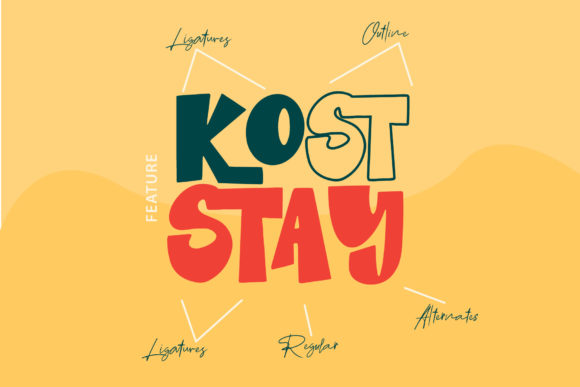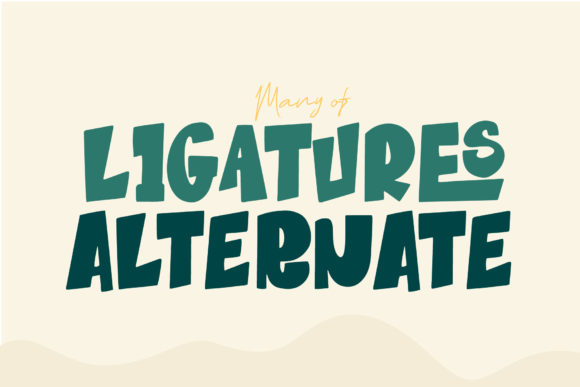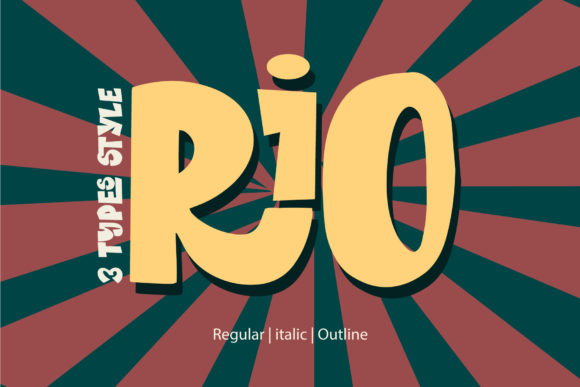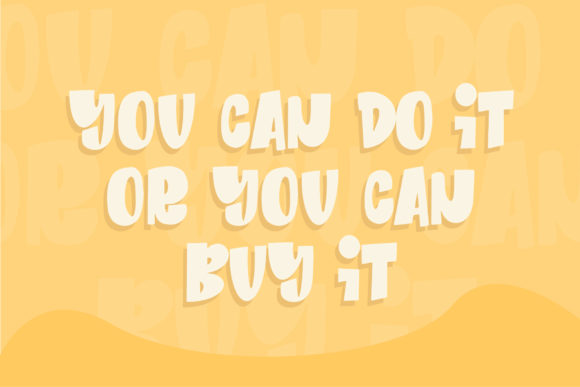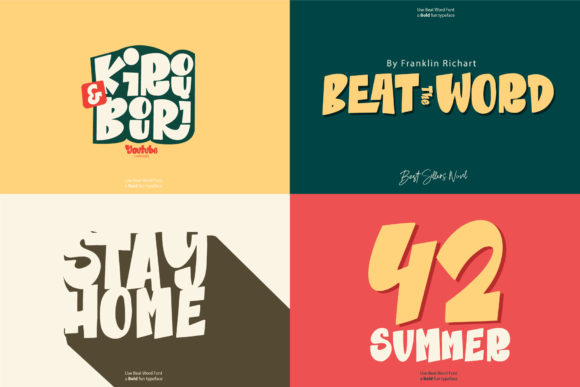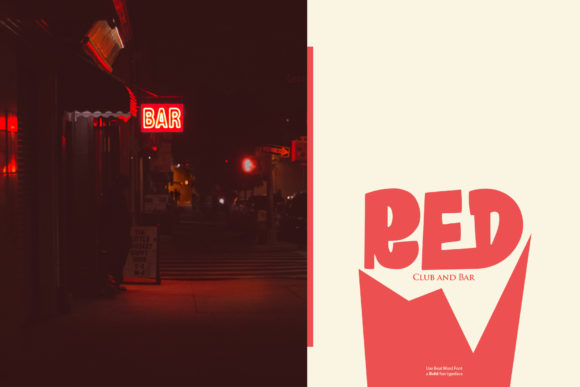
Introducing Beat Word Font: The Ultimate Display Font for Fun and Creative Projects
Are you tired of using the same old fonts for your design projects? Look no further than Beat Word Font, a great display font that’s sure to add a playful touch to any kids and cartoon project. With its amazing alternates and ligatures, Beat Word Font is the perfect choice for designers and crafters who want to add some fun and personality to their work.
What Makes Beat Word Font So Special?
Beat Word Font is a standout display font that features an incredible fun and friendly feel. Its unique design makes it perfect for use in a variety of projects, from kids’ books and cartoons to posters and social media graphics. The font’s playfulness is sure to capture the attention of your audience and leave a lasting impression.
Key Features of Beat Word Font
- Amazing Alternates: Beat Word Font comes with a range of amazing alternates that allow you to customize your text and add some extra flair to your design.
- Ligatures: The font also features ligatures, which help to create a more cohesive and polished look.
- Fun and Friendly Feel: Beat Word Font has a fun and friendly feel that’s perfect for kids and cartoon projects.
- Playful Design: The font’s playful design makes it perfect for use in creative projects where you want to add some personality and whimsy.
How to Use Beat Word Font in Your Projects
Beat Word Font is incredibly easy to use and can be incorporated into a variety of design projects. Here are a few ideas to get you started:
- Kids’ Books: Use Beat Word Font to add some fun and personality to your kids’ book designs.
- Cartoons and Animations: The font’s playful design makes it perfect for use in cartoons and animations.
- Posters and Flyers: Beat Word Font is a great choice for posters and flyers that need to grab attention.
- Social Media Graphics: Use the font to add some personality to your social media graphics and stand out from the crowd.
Tips for Getting the Most Out of Beat Word Font
Here are a few tips for getting the most out of Beat Word Font:
- Experiment with Alternates: Don’t be afraid to experiment with the font’s alternates to find the perfect look for your project.
- Use Ligatures: Use ligatures to create a more cohesive and polished look.
- Mix and Match: Try mixing and matching Beat Word Font with other fonts to create a unique and interesting look.
Beat Word Font is a great display font that’s perfect for designers and crafters who want to add some fun and personality to their projects. With its amazing alternates and ligatures, and its incredible fun and friendly feel, Beat Word Font is sure to become a go-to font in your design arsenal. So why wait? Get creative with Beat Word Font today and brighten up your kids and cartoon projects!
Beat Word Font: The Perfect Choice for Designers and Crafters
In conclusion, Beat Word Font is the perfect choice for designers and crafters who want to add some fun and personality to their projects. Its unique design, amazing alternates and ligatures, and incredible fun and friendly feel make it a standout display font that’s sure to capture the attention of your audience. So why wait? Get creative with Beat Word Font today and take your designs to the next level!